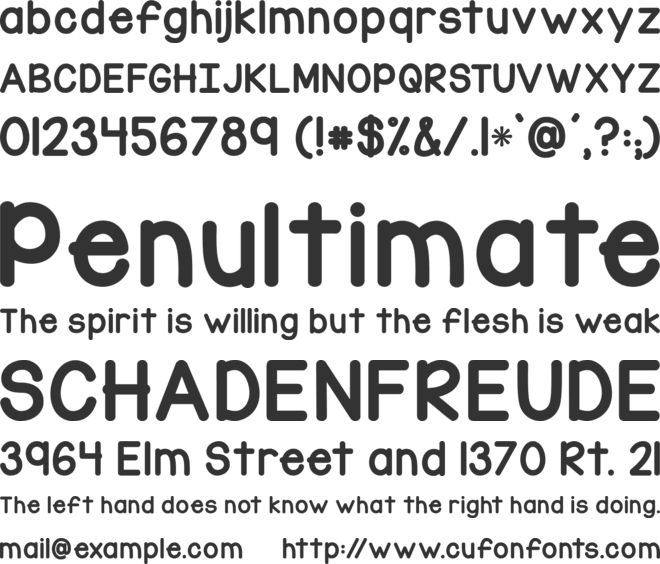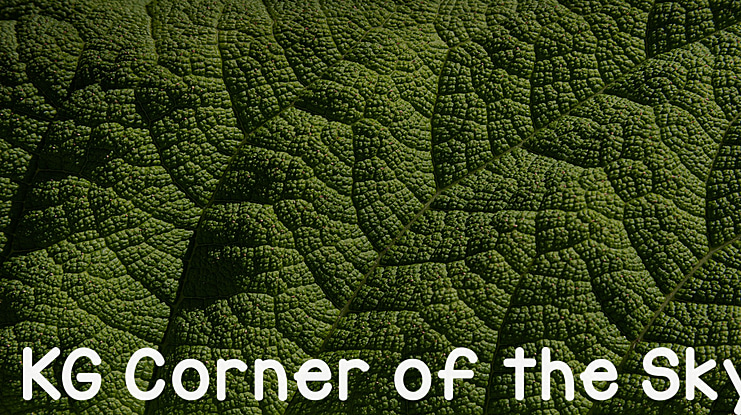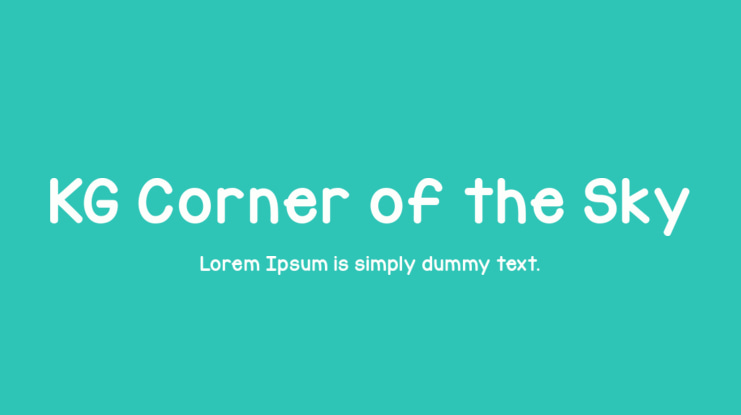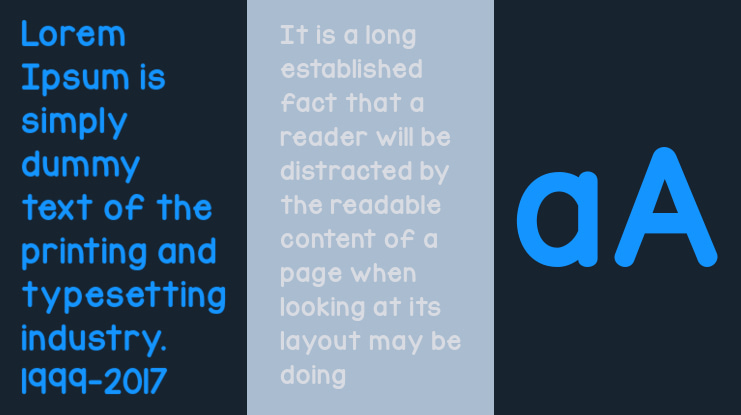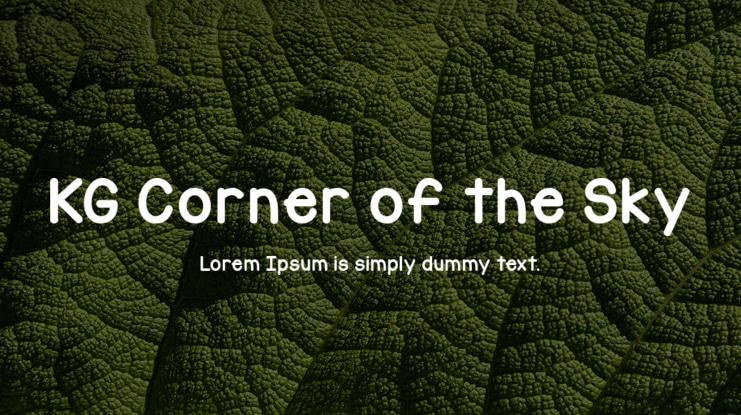
KG Corner of the Sky Font
Kimberly Geswein
A perfectly neat handwritten font. This is designed to be an alternative version of my KG Lego House- offering you thicker and slightly altered letters. It includes the primary style capital letter I with cross bars.